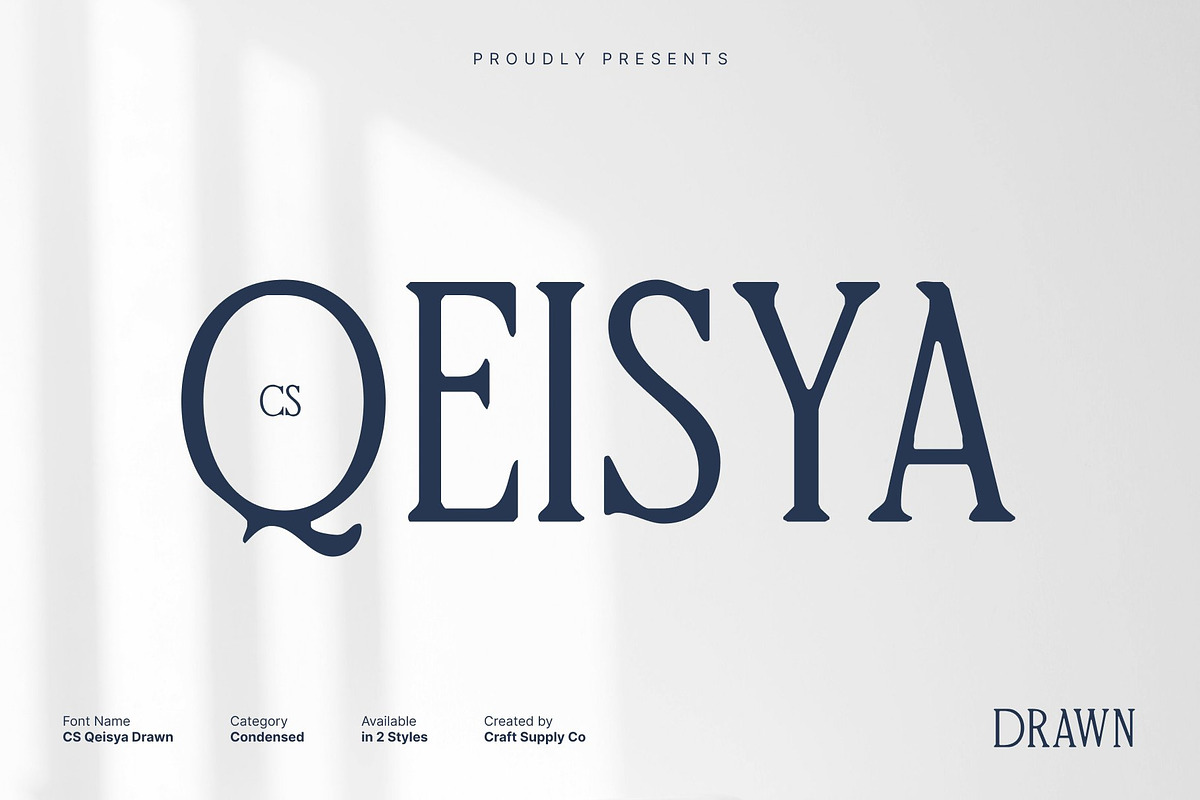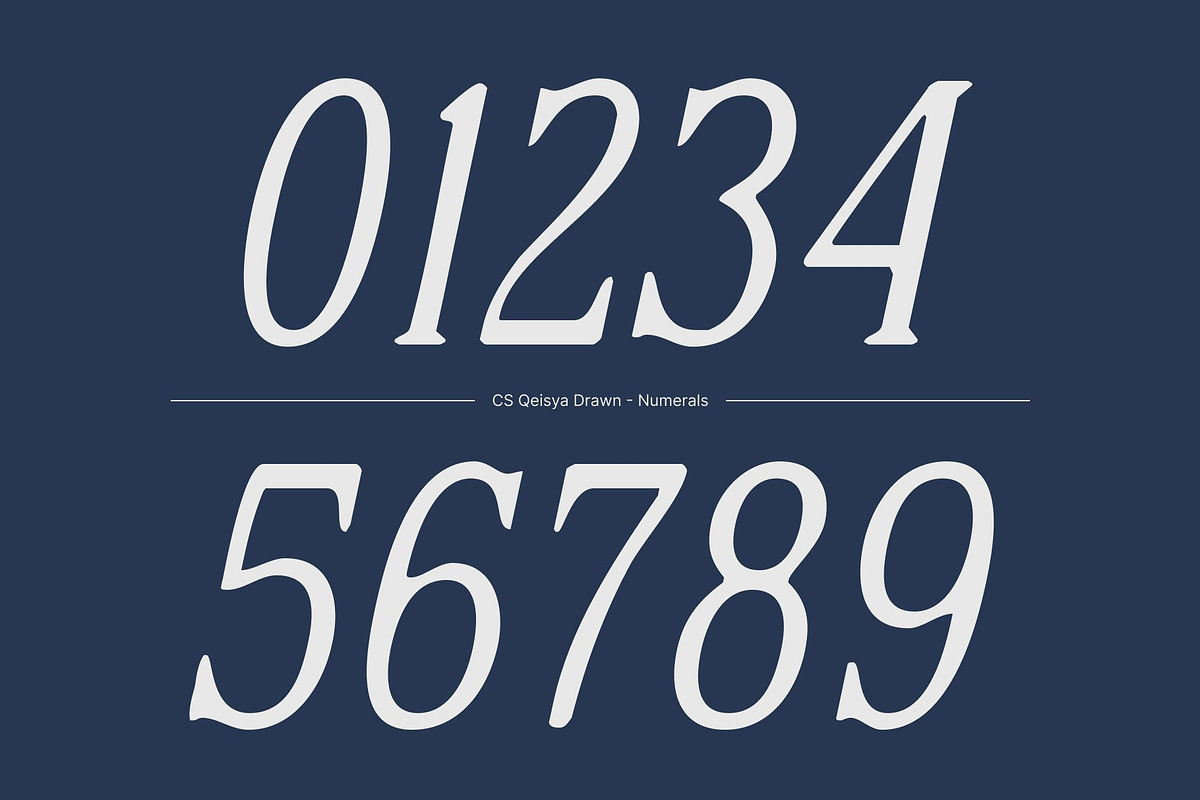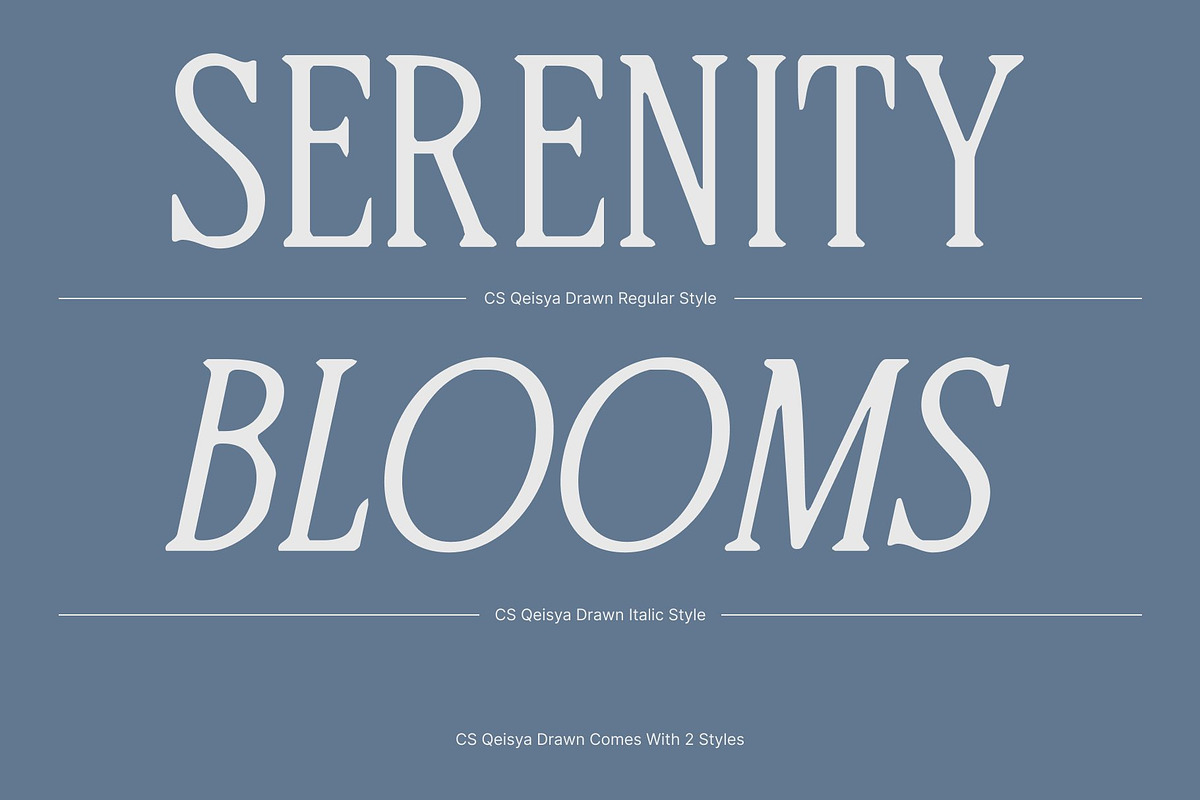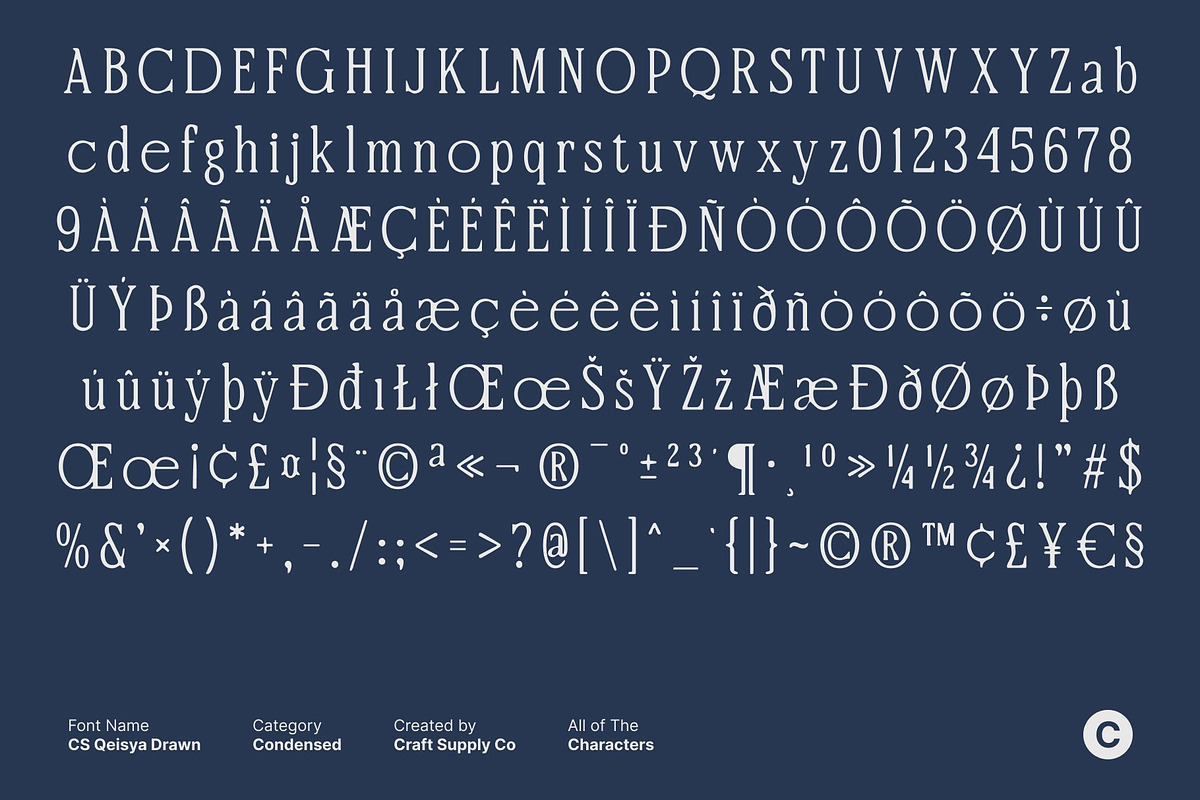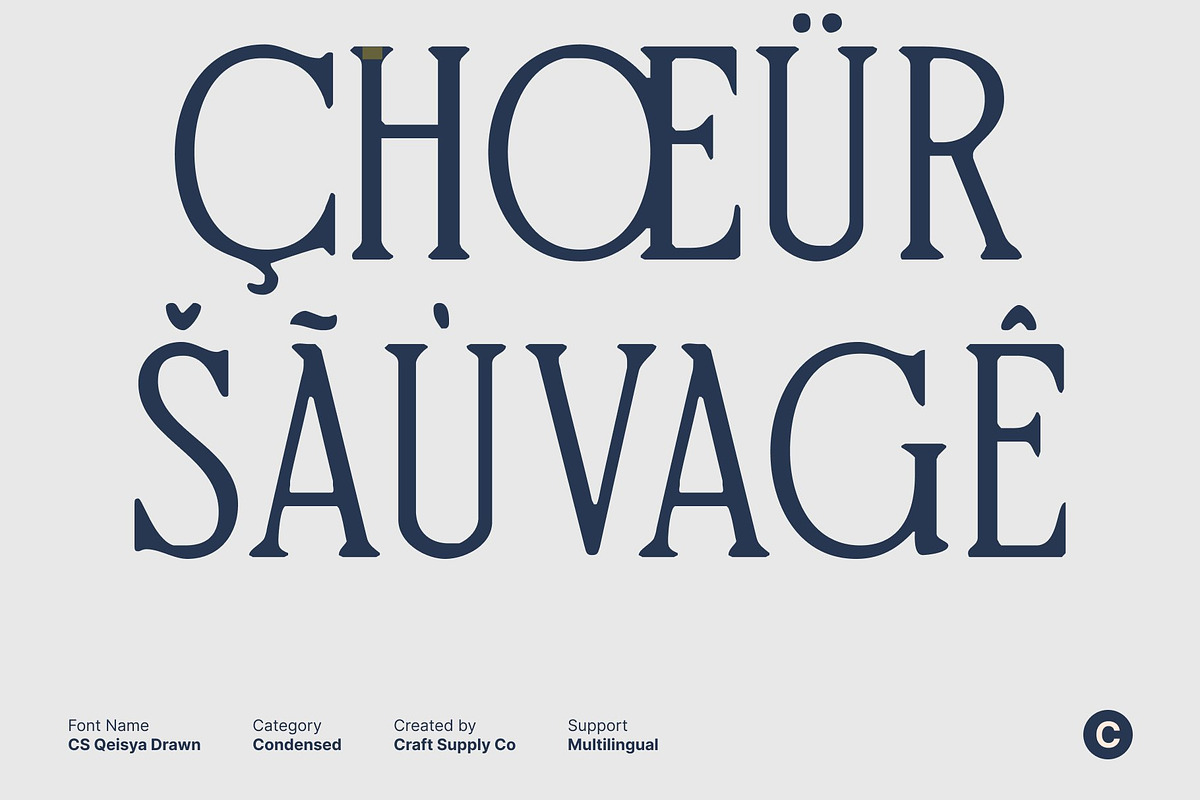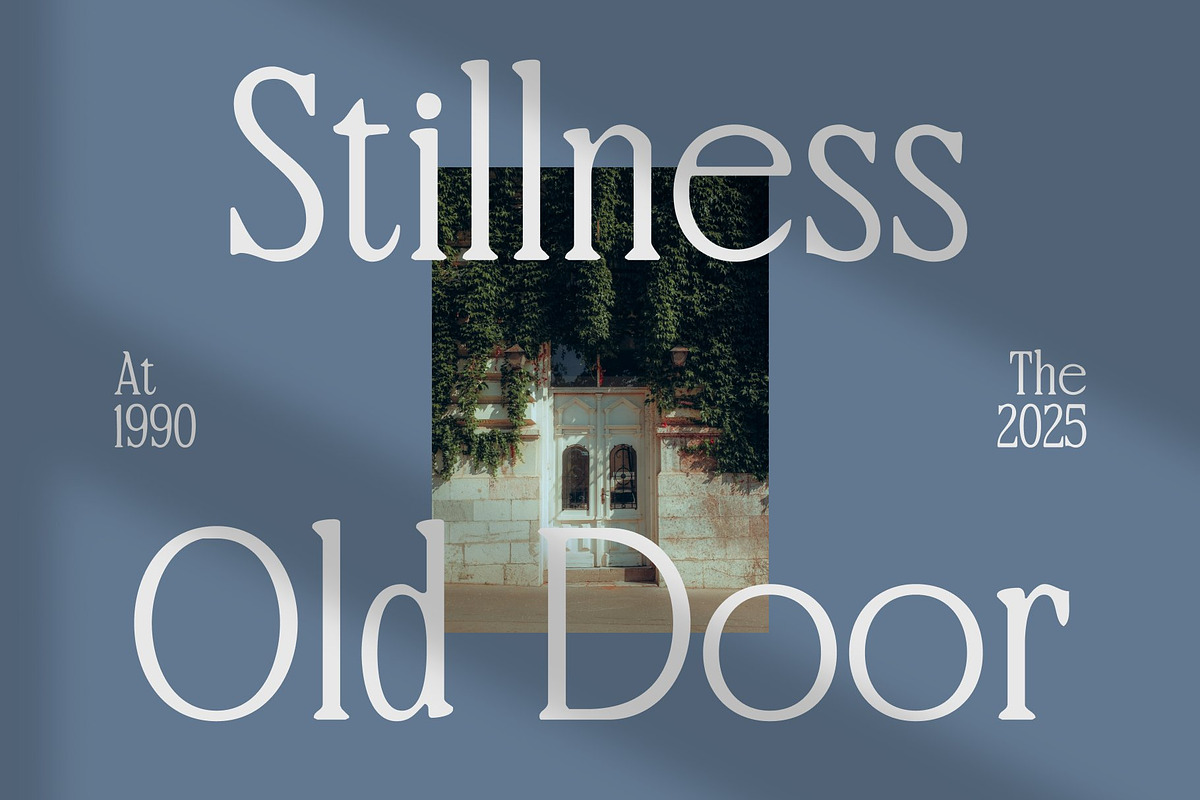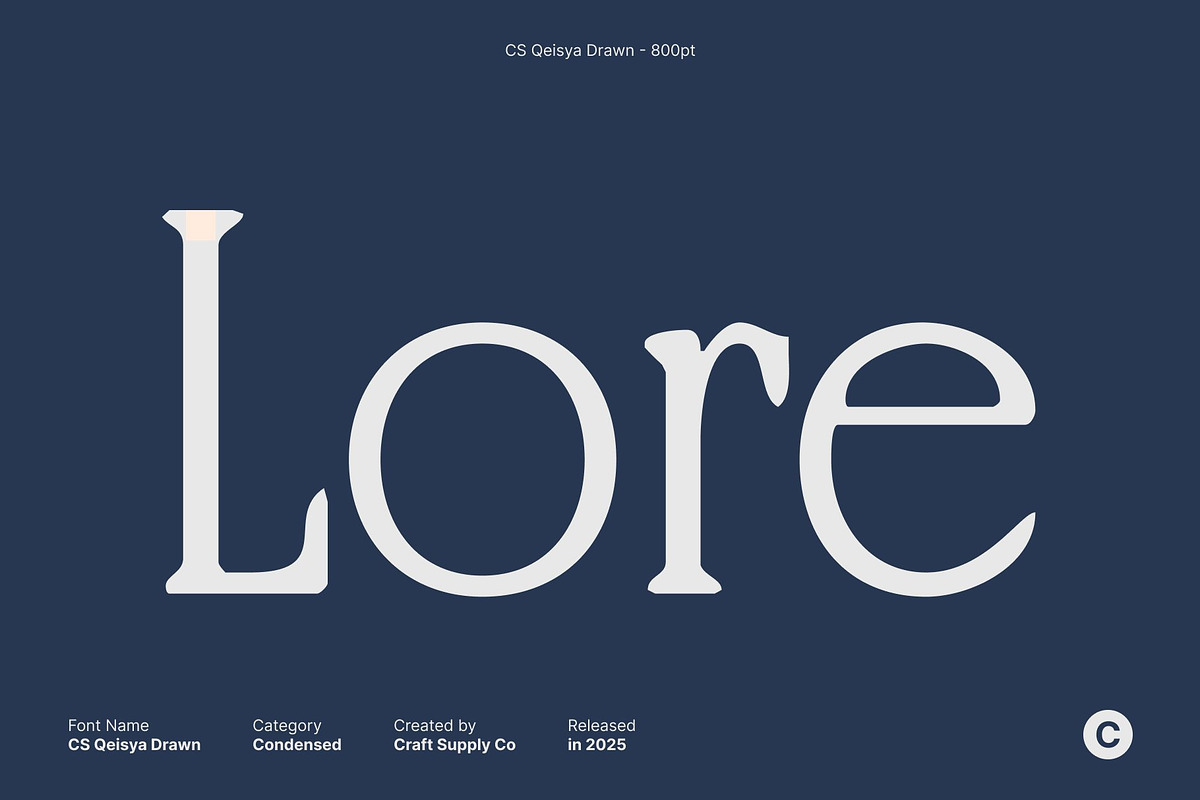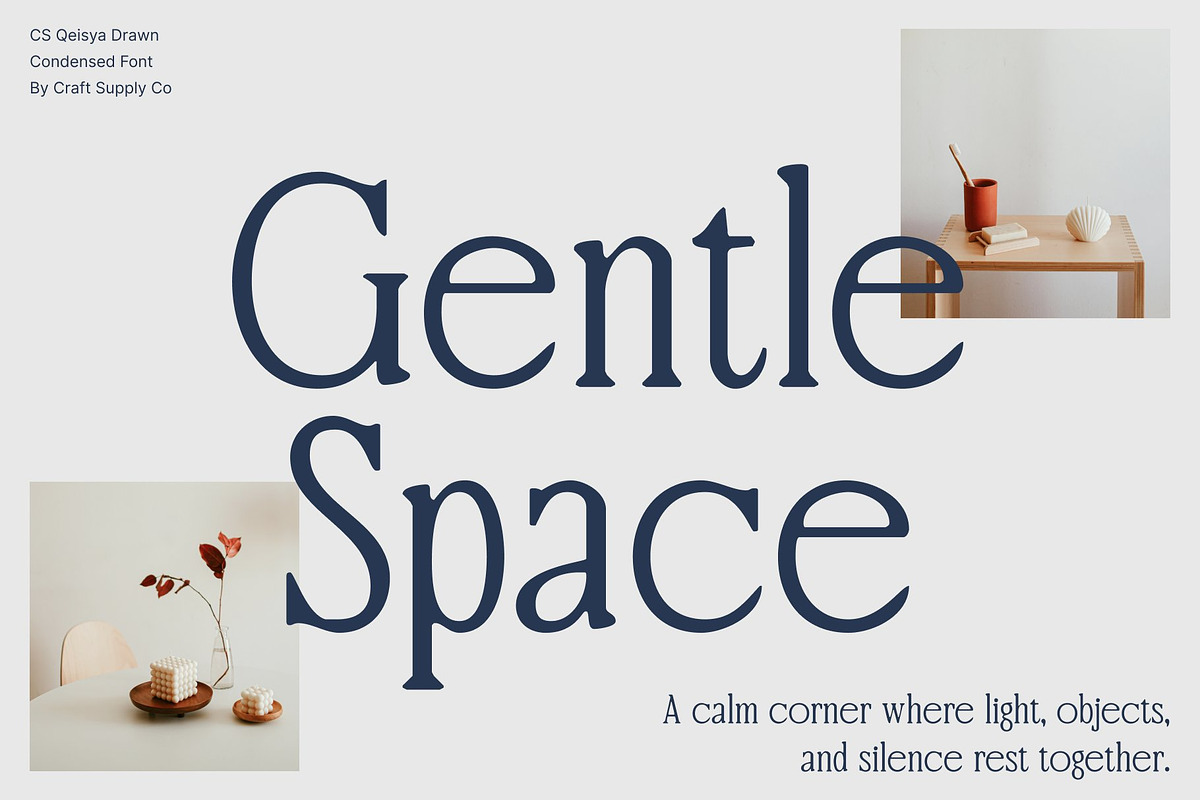
CS Qeisya Drawn
CS Qeisya Drawn – Contemporary Serif Where Modern Grace Meets Timeless Form
Modern Elegance with Refined Character This is a modern serif font that combines slender, graceful forms with finely crafted serifs, delivering an elegant typographic experience. Its subtle hand-drawn texture adds warmth and personality, enhancing the font’s natural sophistication. Balancing modern clarity with classical poise, this font is ideal for visual storytelling that requires precision, beauty, and a refined aesthetic.
Tall, Structured, and Striking Featuring tall, narrow letterforms with extended, delicately detailed serifs, this font achieves a rhythm and structure that is both legible and visually captivating. The vertical emphasis gives text a sense of elegance and authority, while the drawn effect adds a handcrafted, artistic quality that distinguishes it from traditional serif fonts.
Slim, Clean, and Sophisticated With its thin strokes and minimal contrast, this font maintains a clean and slender silhouette. The subtle hand-drawn texture introduces depth and character without compromising readability, making it perfect for designs that demand understated sophistication with a touch of artisanal charm.
Versatile for Luxury and Professional Design This font works beautifully across high-end branding, editorial layouts, corporate identities, magazine spreads, and packaging design. Its refined proportions and handcrafted details communicate exclusivity, intellect, and elegance, elevating any project with a confident, contemporary, and timeless appeal.